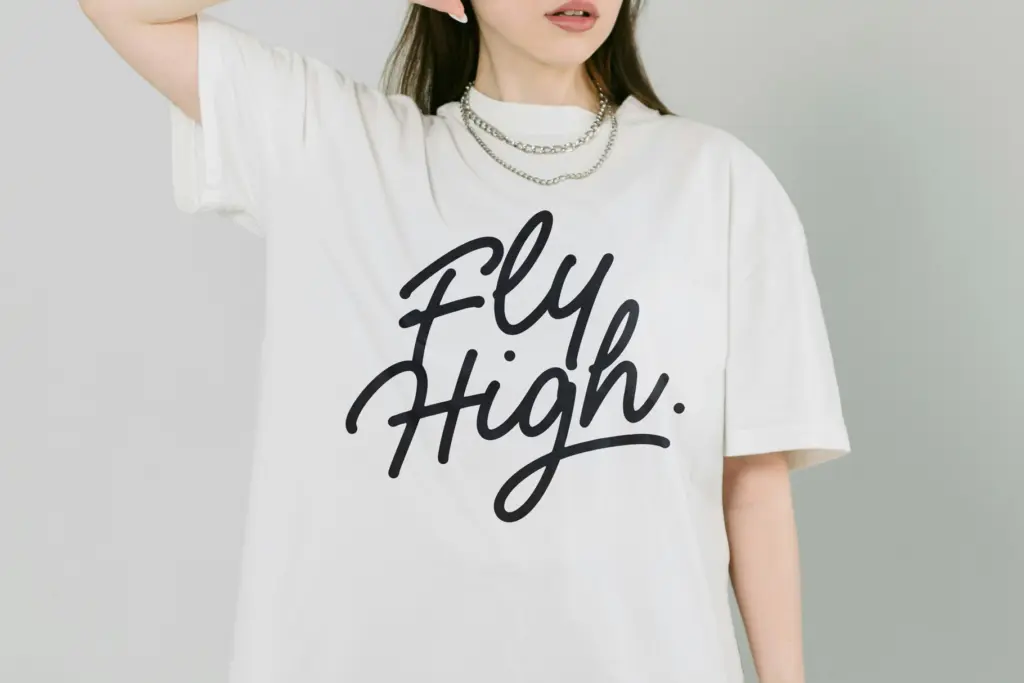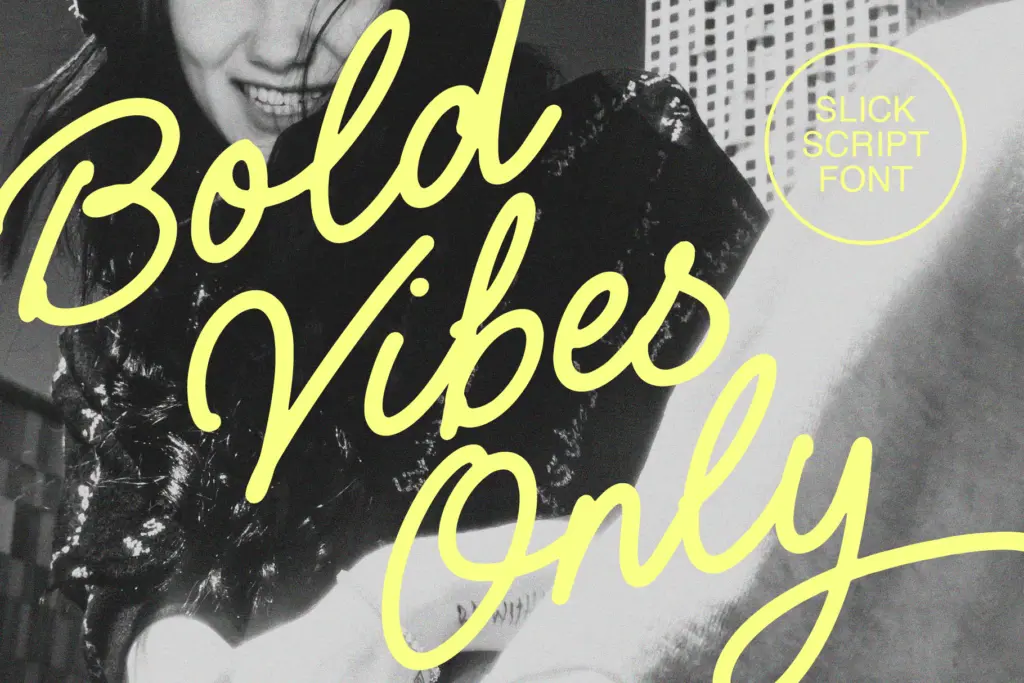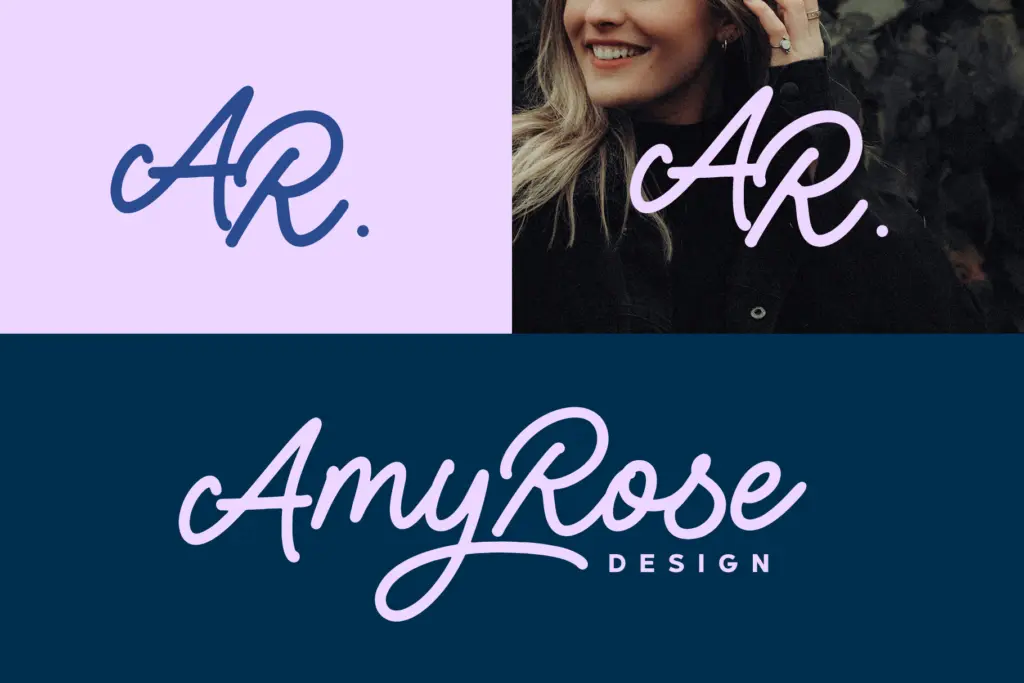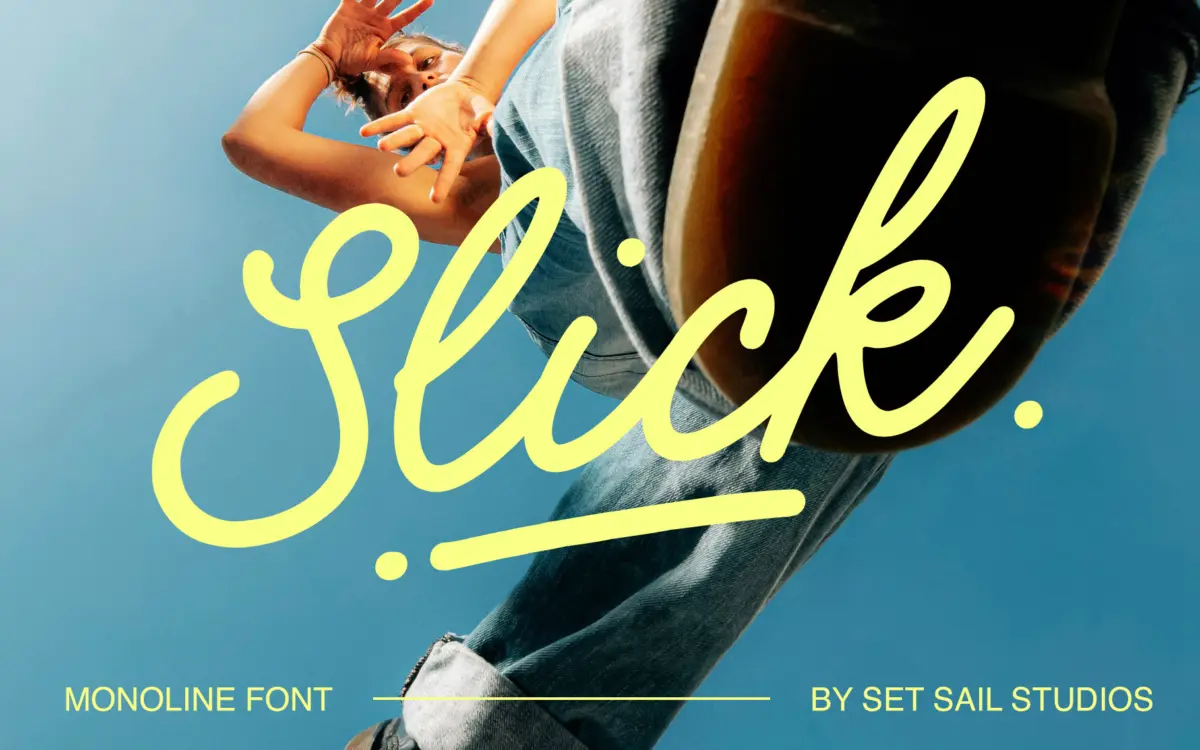
Slick is a monoline script, meaning the stroke doesn’t swell and taper the way a brush or pointed-pen script does. The line stays a single consistent weight from entry to exit, which gives it a felt-tip or marker feel rather than a calligraphic one. Letters connect in a loose, casual cursive with a forward lean, and the joins are kept simple — there’s no attempt to fake pressure or ink pooling at the joins, which keeps the whole thing reading clean rather than fussy.
The construction is friendly rather than formal. Ascenders and descenders don’t overreach, x-height is generous, and the overall rhythm is even, without the dramatic size shifts some scripts use to create drama. That makes it a font with a fairly narrow emotional range: it does upbeat and approachable well, but it isn’t going to do luxury or gravitas. If you need a script that whispers, look elsewhere; Slick is built to be legible at a glance and pleasant rather than precious.
The package is built around a Regular set, but the real value is in what sits alongside it. A separate Alternate font gives you a second full upper and lowercase set, so you can swap letterforms in and out without hunting through a glyphs panel for stylistic sets — useful if you’re working in software that doesn’t handle OpenType features gracefully. There are 26 swashes, delivered as their own font file, generated by typing a-z; these are meant for underlines and flourishes rather than as standalone letters, and they do that job well, adding a hand-finished flick under a word or logo lockup.
Twenty-three ligatures handle common double-letter combinations, smoothing out repeated letters that would otherwise look mechanical when two identical connecting strokes sit next to each other. Turning on Standard Ligatures is enough to activate these in most apps; anyone working somewhere that doesn’t support OpenType features will need to insert them manually via a glyphs panel, which is a bit of friction for casual users. Language support extends to a broad range of Western and Central European languages, so accented characters aren’t an afterthought.
Slick fits best where the brief calls for something warm and unbothered rather than elegant — greeting cards, quote graphics, packaging that wants a hand-touched signature without going full calligraphy, merch prints, social templates. Because it’s monoline, it holds up fine when printed small on labels or embroidered, where thin-thick contrast would otherwise clog or drop out.
It’s less suited to formal invitations or anything chasing a premium, old-world feel — that register belongs to scripts with real contrast and more restrained joins. Pair it with a plain sans or slab for body copy and let Slick carry the headline or signature moment; asking it to run long passages of text will tire the eye, as most scripts of this type do.
- Separate alternate and swash fonts make variation easy without digging through OpenType panels.
- Even monoline stroke holds up well at small sizes on labels and packaging.
- Twenty-three ligatures smooth out repeated-letter combinations that often look awkward in scripts.
- The consistent stroke weight limits it to a casual, upbeat register — it can't do formal or luxury work.
- Ligature access depends on OpenType support, adding friction in apps that lack it.
Slick is a competent, cheerful monoline script that does casual branding and merch work well but doesn't stretch much beyond that register. The alternates, swash font and ligatures give it more flexibility than a typical single-weight script. It's a solid workhorse for upbeat projects, not a font for anything chasing elegance.